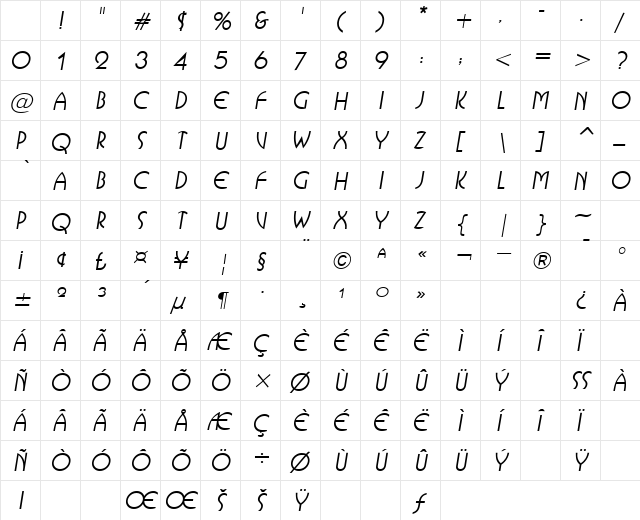
Complete PaellaCaps Oblique glyph index. Displaying only characters natively supported by PaellaCaps Oblique font.
PaellaCaps is a composed and adaptable typeface that performs quietly and consistently across a wide range of design contexts. The slanted form adds forward momentum and visual energy.